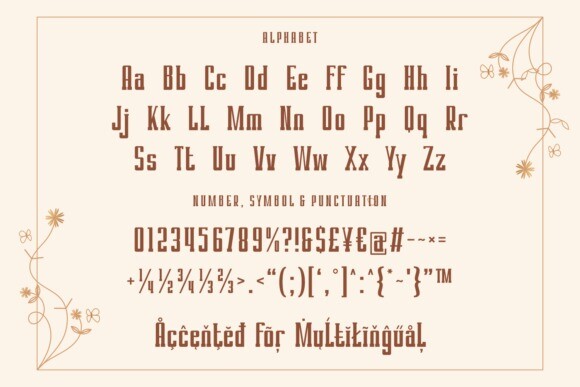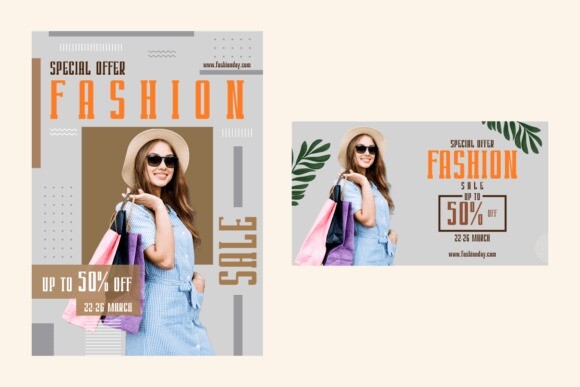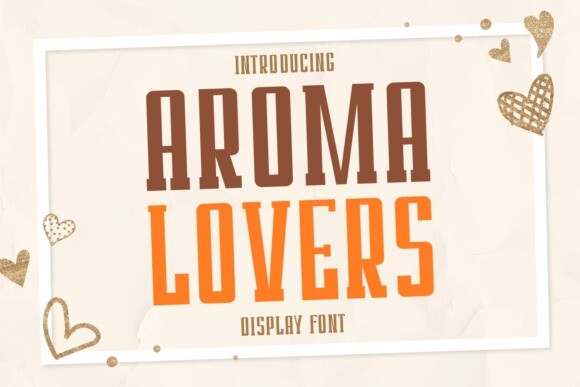
Aroma Lovers Font
Aroma Lovers Font is a stylish display font that brings a dash of flair to your designs. With its chic and distinctive characters, this font is perfect for making a statement in headlines, posters, or any display project. Its charismatic style adds a touch of personality, making Aroma Lovers an excellent choice for those who seek a blend of sophistication and creativity. Elevate your visual appeal with this eye-catching display font and infuse your designs with a touch of trendy charm.